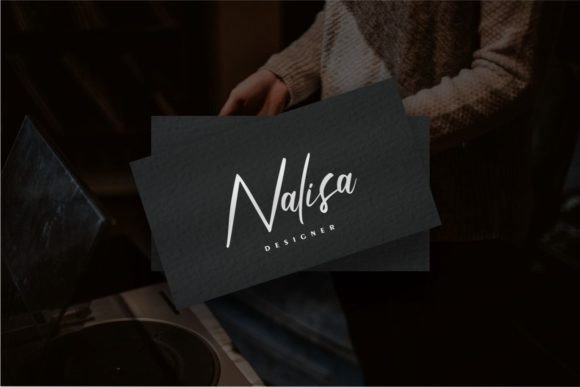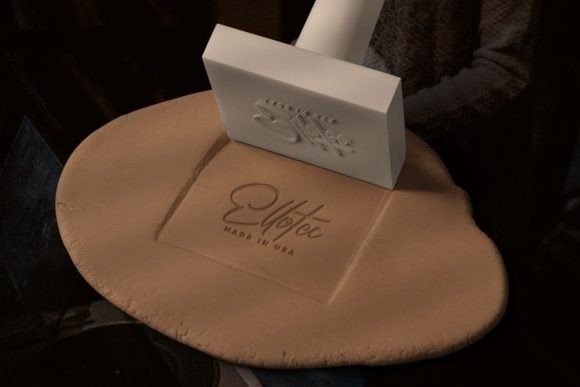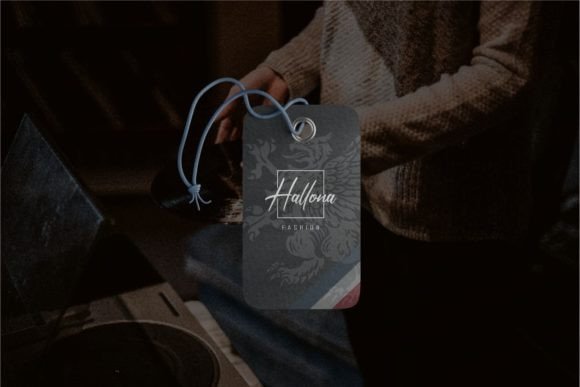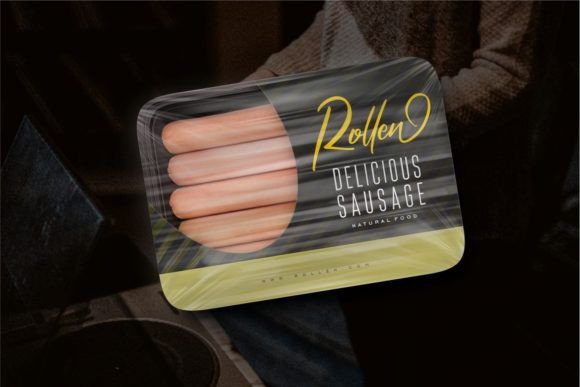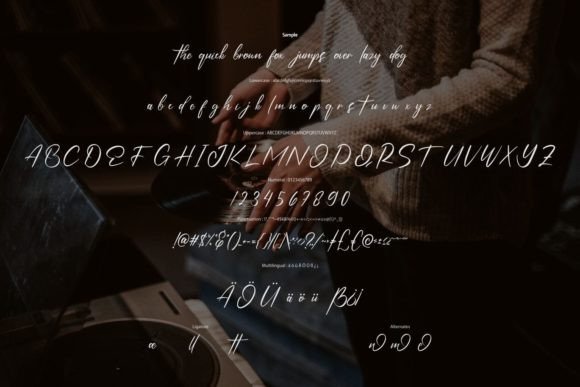
Introduction to Fellintos Font
Fellintos is an elegant and well-rounded handwritten font, perfect for crafty projects that need authentic typography.
Use it for wedding invitations, birthday cards, personal branding, elegant logos, and more, and your designs will stand out .